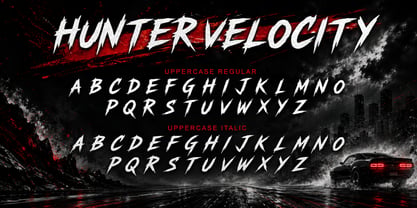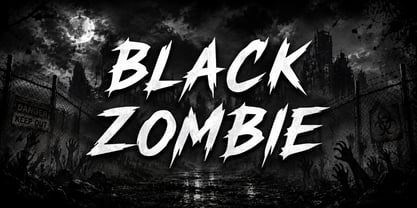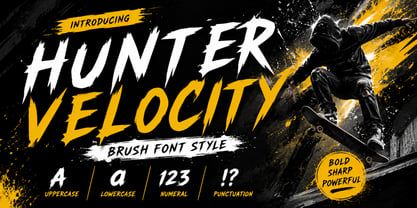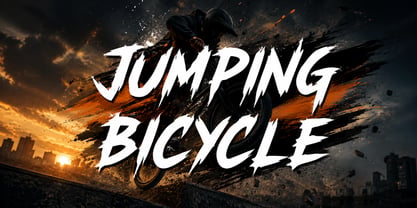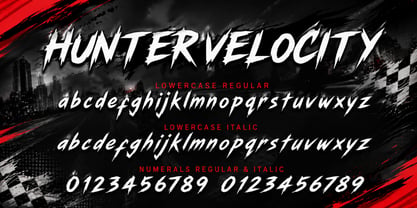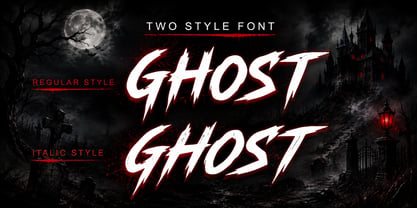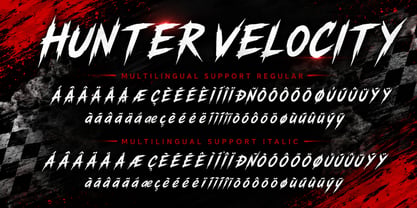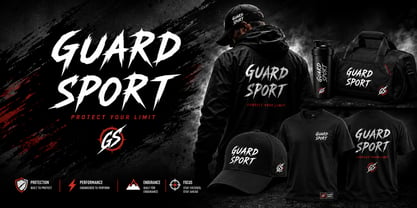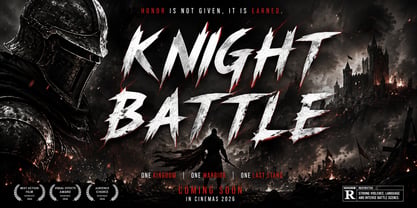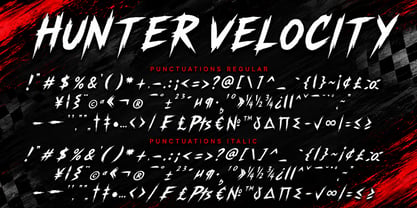
Hunter Velocity
by Yoga Letter
The Hunter Velocity Font Family was designed by Isroni Yoga Prasetya and published by Yoga Letter. Hunter Velocity contains 2 styles and family package options. More about this family
Hunter Velocity is a bold and energetic brush font characterized by sharp strokes that embody speed, power, and a fearless attitude. This font is ideal for action movie titles, sports branding, gaming, streetwear, posters, and eye-catching headlines. Its hand-drawn brush style provides a raw, dynamic, and powerful visual impact, making it a perfect choice for designs that require a strong presence. Create unforgettable designs with a font that radiates confidence, movement, and contemporary urban energy, enhancing your projects with its unique flair and versatility.
Designers: Isroni Yoga Prasetya
Foundry: Yoga Letter